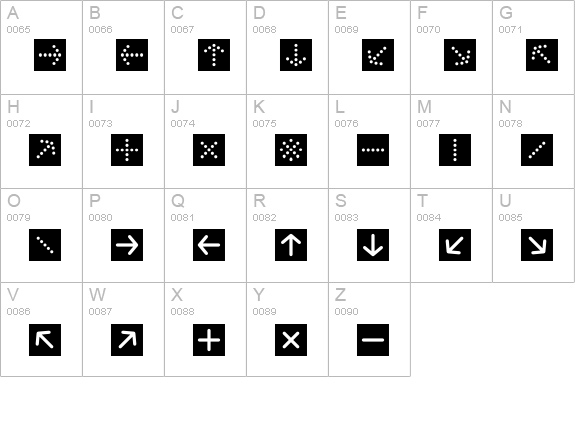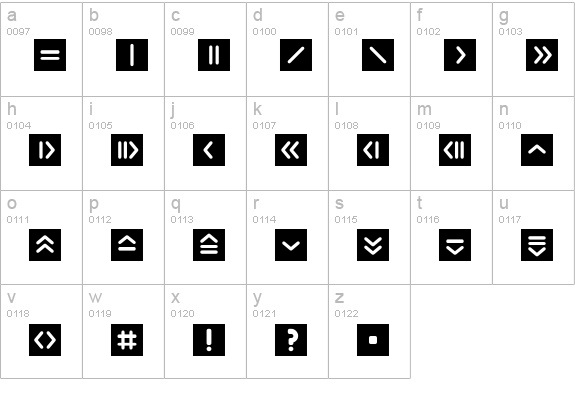
ButtonBonus-SquareNegative font is a unique and eye-catching typeface that is perfect for adding a modern and edgy touch to your designs. Featuring square and bold letter shapes with a touch of playfulness, this font is sure to make a statement. Whether you're designing posters, flyers, or social media graphics, ButtonBonus-SquareNegative font will give your projects a fresh and dynamic look. Best of all, ButtonBonus-SquareNegative font is available for free download at FontsMarket.com. So go ahead and grab this versatile font to add a touch of creativity to your designs today!